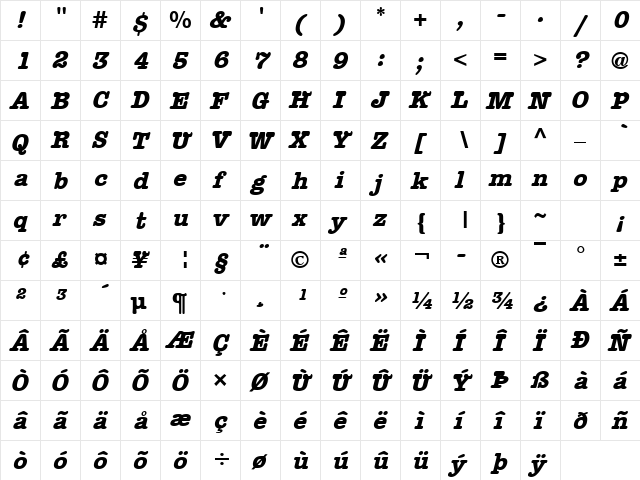
Editor Bold Italic
Design Context for Editor Typeface
Editor offers clean, dependable letterforms without strong stylistic allegiance, making it a practical choice for designers who need flexibility. The slanted form adds forward momentum and visual energy. The heavy weight commands attention and anchors typographic hierarchies.